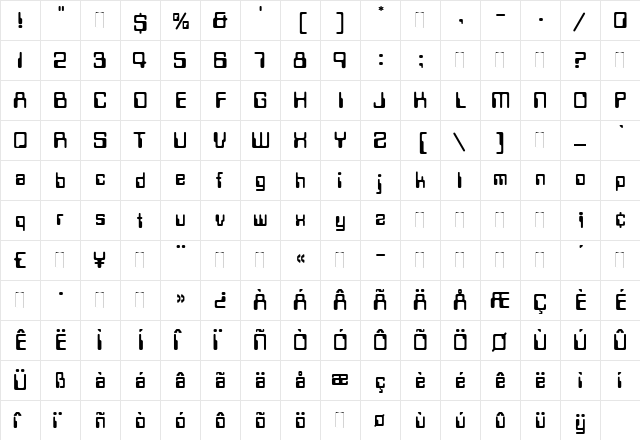
Data Seventy Regular
Design Context for Data Seventy Typeface
Data Seventy is a composed and adaptable typeface that performs quietly and consistently across a wide range of design contexts.